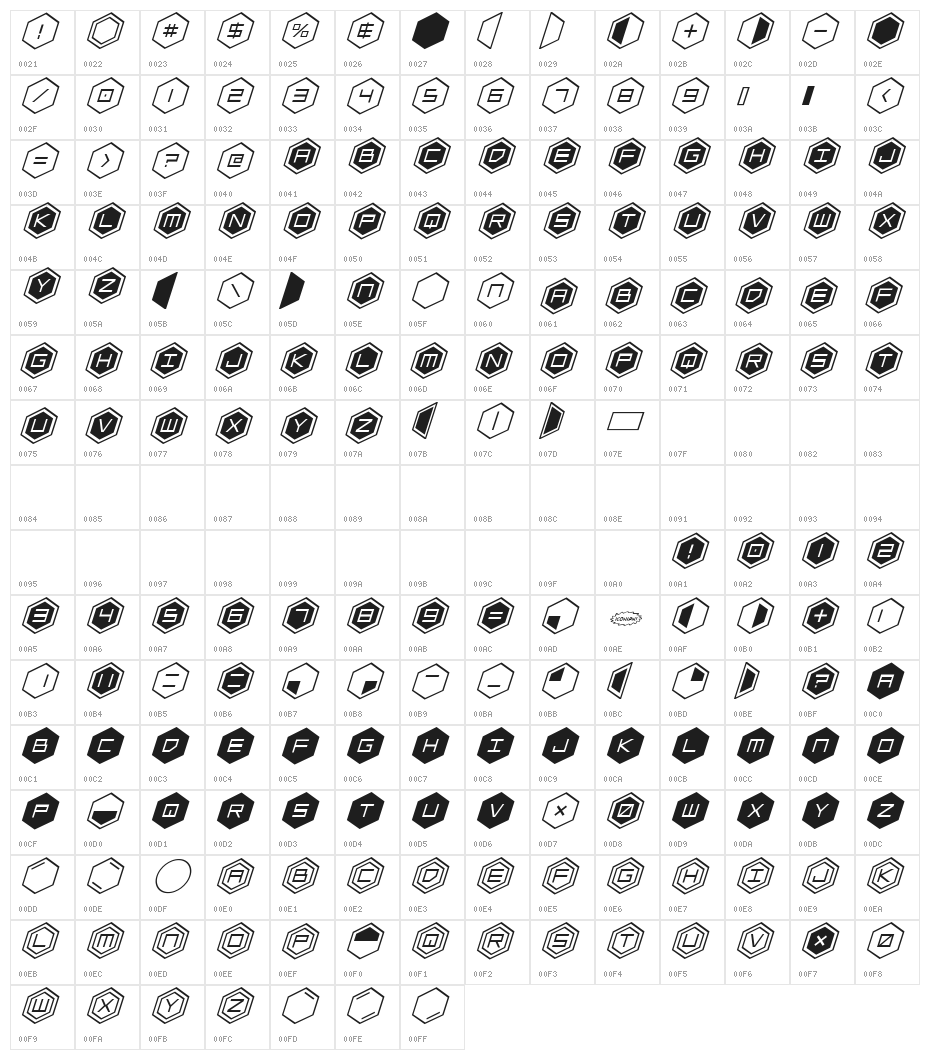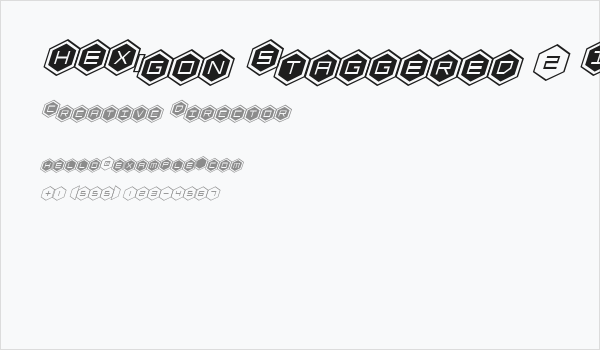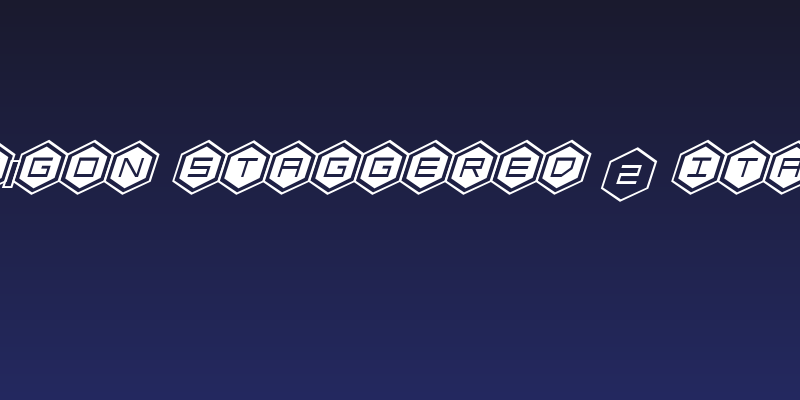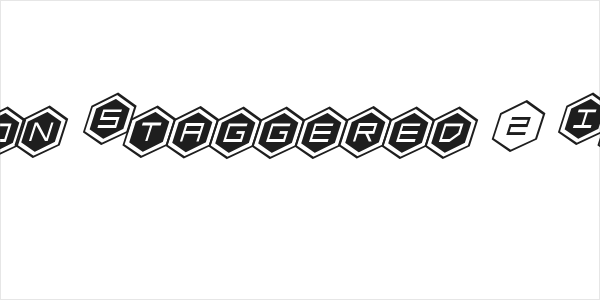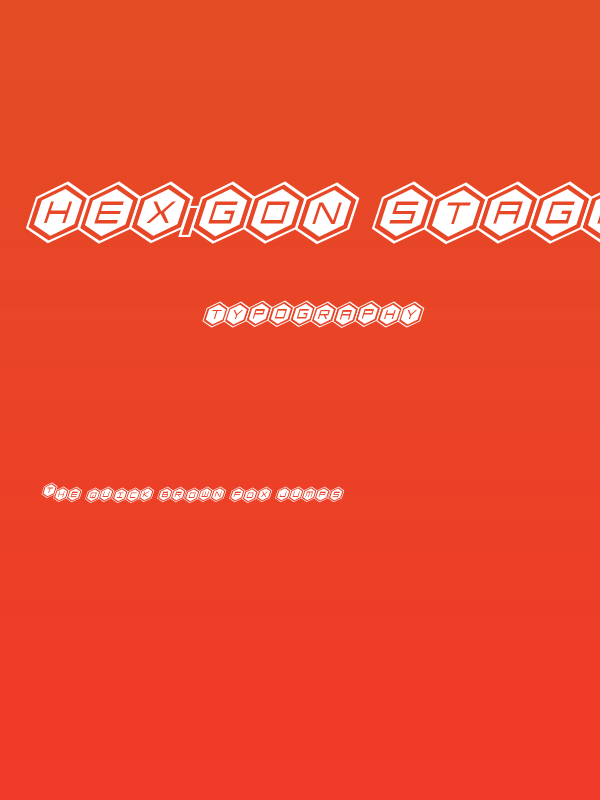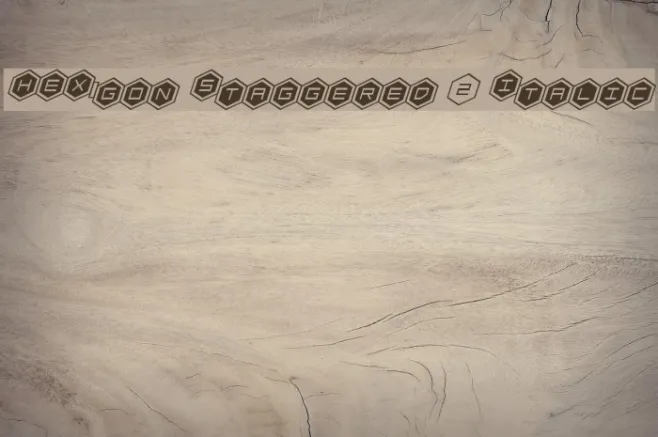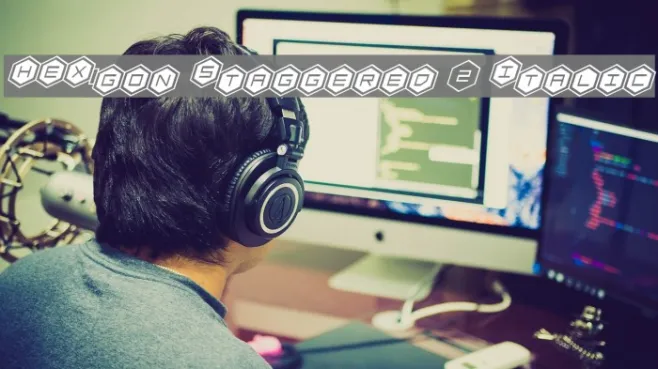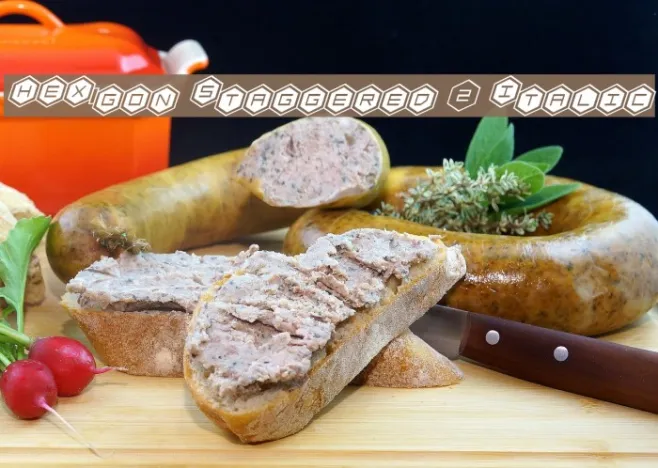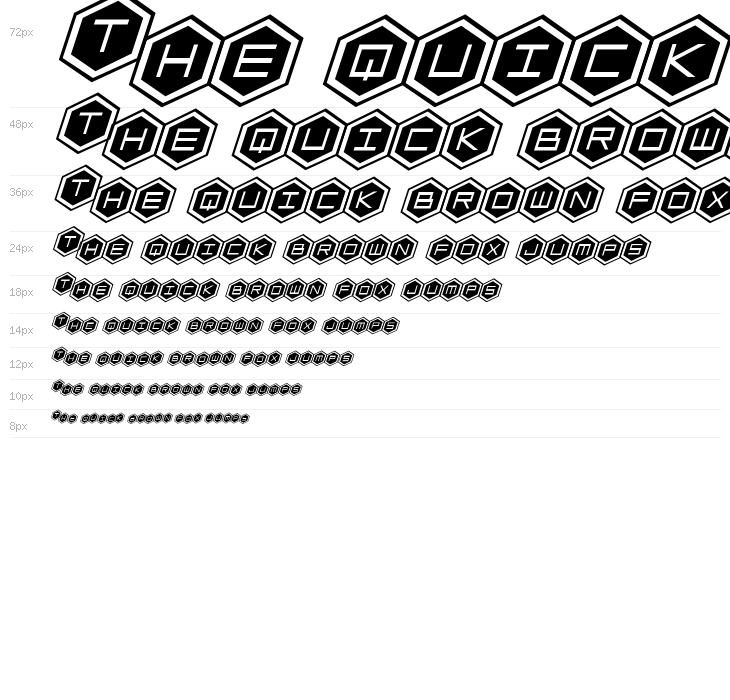
HEX:gon Staggered 2 Italic Font
HEX:gon Staggered 2 Italic Description
This font features a unique design where each character is encased within a hexagon, creating a staggered and dynamic appearance. The letters are bold and italicized, giving them a forward-leaning, energetic look. The geometric hexagonal shapes add a modern and futuristic touch, making the font stand out. The characters are well-defined with a consistent stroke width, ensuring readability despite the decorative elements. The numbers and special characters follow the same hexagonal pattern, maintaining uniformity across the set.